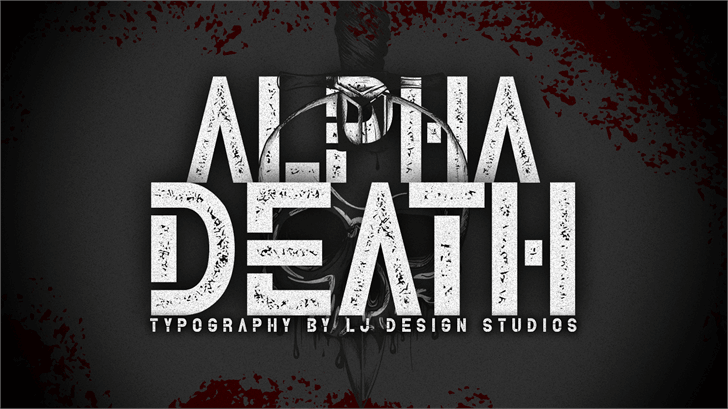
Alpha Death Typeface
Alpha Death is a new vintage display and inspired by vintage packaging, vintage book cover, and vintage tins. a typeface classic taste ,very suitable as to make a design choice for books, magazines, packaging, branding , signage and more other creative project.